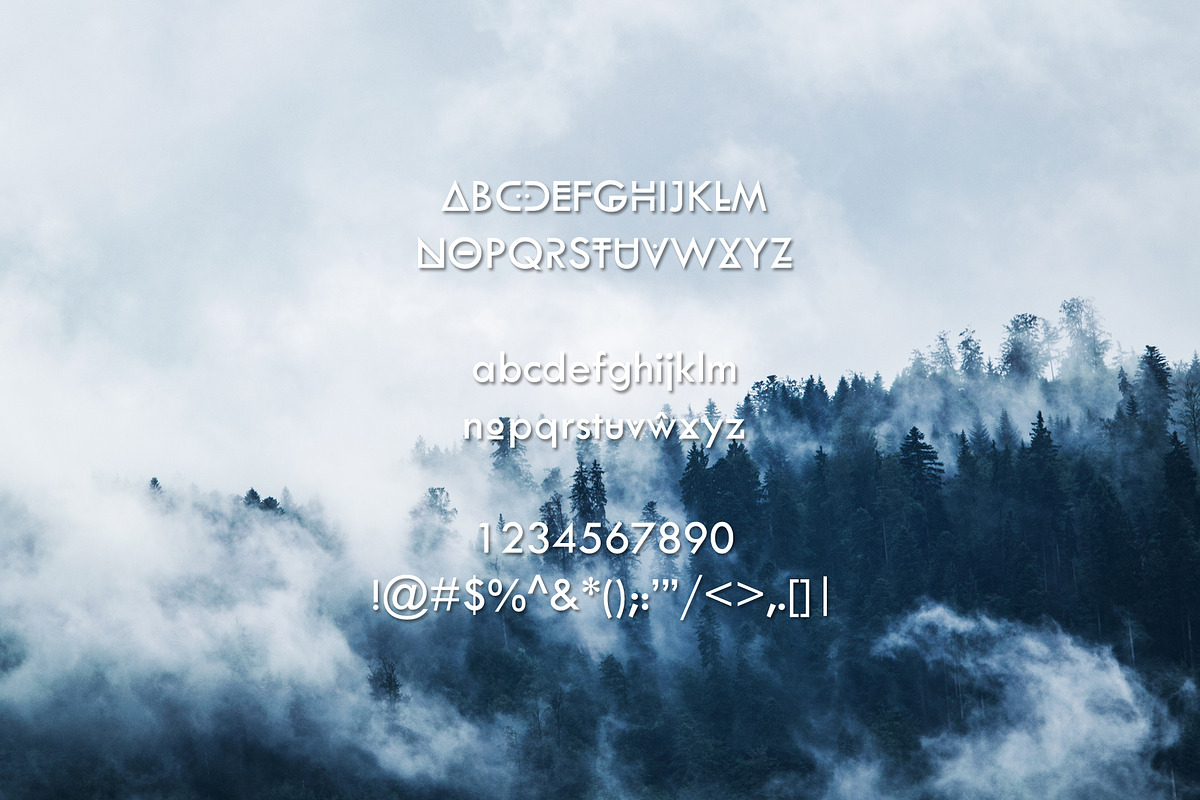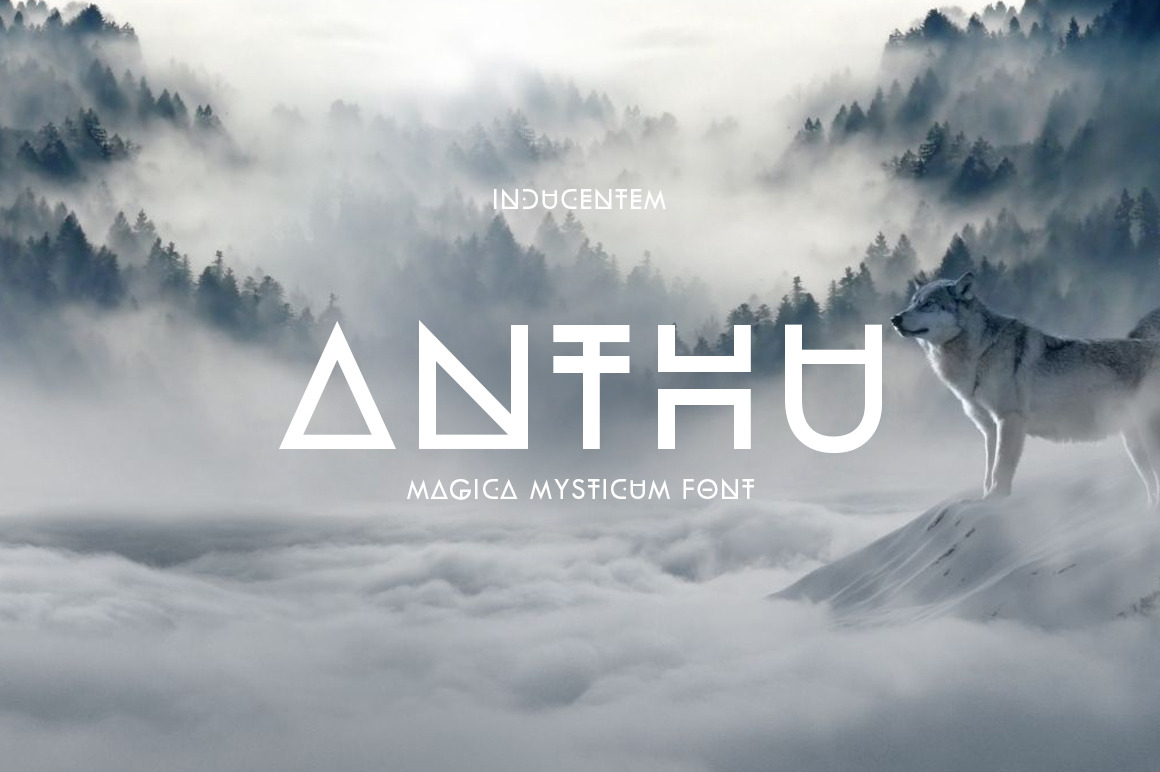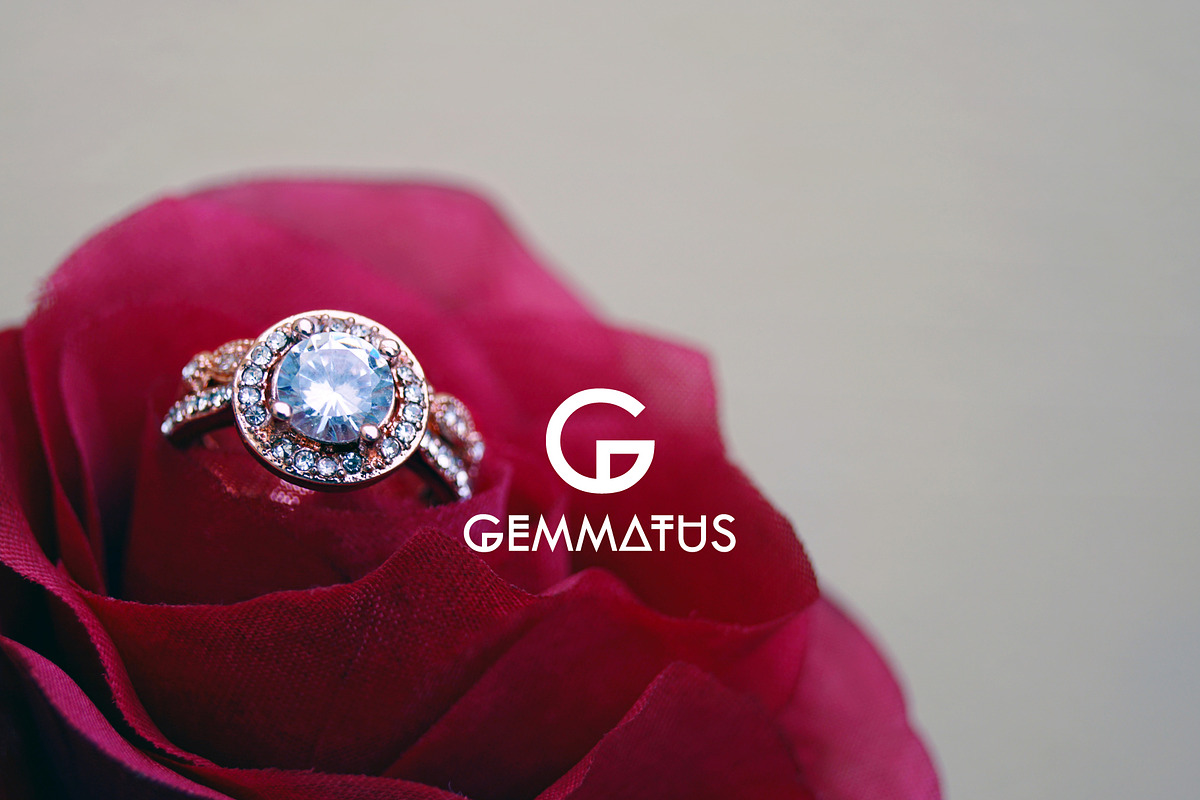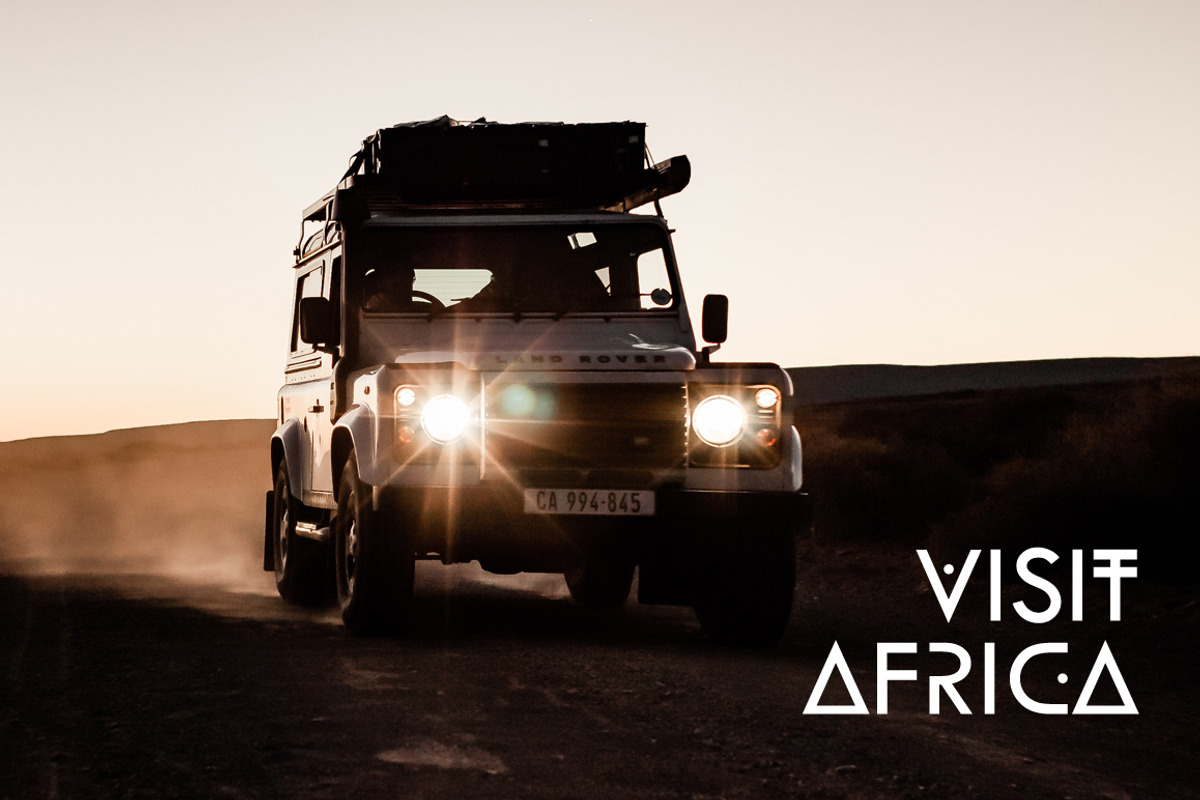
Anthu - A Mystical Font
Anthu is a mystical font with a unique and modern geometric style. It is suitable for logos, quotes, social media posts, film titles and stationary. It works with different themes such as mystical, tribal, ethnic, magical, and fantasy. Enjoy!